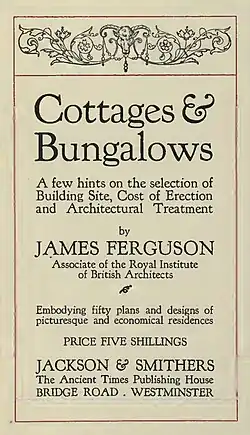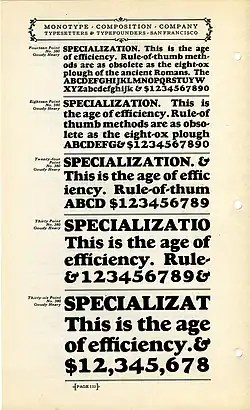
List of typefaces designed by Frederic Goudy
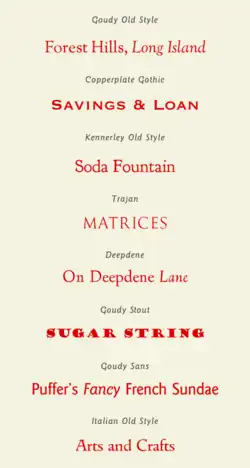
The following is a list of typefaces designed by Frederic Goudy.
Goudy was one of America's most prolific designers of metal type. He worked under the influence of the Arts and Crafts movement, and many of his designs are old-style serif designs inspired by the relatively organic structure of typefaces created between the fifteenth and eighteenth centuries, following the lead of earlier revivalist printers such as William Morris.[1] Eric Sloane, who was his neighbour as a boy, recalled that he also took inspiration from hand-painted signs.[2] He also developed a number of typefaces influenced by blackletter medieval manuscripts, illuminated manuscript capitals and Roman square capitals carved into stone.[3] This means that several of his most famous designs such as Copperplate Gothic and Goudy Stout are unusual deviations from his normal style.[4]
Goudy's taste matched a trend of the period, in which a preference for using mechanical, geometric Didone fonts introduced in the eighteenth and nineteenth century was being displaced by a revival of interest in the 'old-style' serif fonts (preferred by Goudy) developed before this, a change that has proved to be lasting, especially in book body text.[5][6][7][8]
Again unusually for type designers of the period, Goudy wrote extensively on his work and ambitions, partly in order to publicise his work as an independent artisan. He completed A Half-Century of Type Design and Typography, a two-volume survey of all his designs, late in life, in which he discussed all of his work.[9][10] Not all Goudy's designs survive or have been digitised: several, often designs never cut into metal, were lost in fires which burned down his studio in 1908 and again in 1939. Indeed, in his autobiography Goudy sometimes said he had little memory of some of his earlier designs. He worked extensively with his wife Bertha, who particularly collaborated with him on printing projects. He listed his typefaces with numbers in a similar way to the opus numbers used by composers.
Career
Unlike most type designers of the metal type era, Goudy worked as an independent designer not permanently employed by any one company, giving him particular latitude to work on his own projects. He generally avoided sans-serif designs, though he did create the nearly sans-serif Copperplate Gothic, inspired by engraved letters, early in his career and a few others later. As an independent artist and consultant, Goudy needed to undertake a large range of commissions to survive, and sought patronage from companies (and, especially later in life, universities) who would commission a typeface for their own printing and advertising.[12] This led to him producing a large range of designs on commission, and promoting his career through talks and teaching.[1][13] As a result, many of his designs may look somewhat similar to modern readers.
Goudy's career took place at a time of progress in printing technology. New pantograph engraving technology made it easier to rapidly engrave matrices), the moulds in which metal type would be cast or the punches used to stamp them in copper.[14] This gave much cleaner results than pre-pantograph punches, which had to be carefully hand-carved at the size of the desired letter, with less difficulty and the ability to prepare designs more easily from large plan drawings.[15]
During the early years of Goudy's career, hand typesetting was being superseded, especially for body text composition, by hot metal typesetting, and his client Monotype was one of the most popular manufacturers of these systems, in competition with that of Linotype. Both allowed metal type to be quickly cast under the control of a keyboard, eliminating the need to manually cast metal type and slot it into place into a printing press. With no need to keep type in stock, just the matrices used as moulds to cast the type, printers could use a wider range of fonts and there was increasing demand for varied typefaces. However, many of Goudy’s designs were used in hand-setting also.
While most of Goudy's designs are 'old-style' serif faces, they do still explore a wide range of aspects of the genre, with Deepdene offering a strikingly upright italic, Goudy Modern merging traditional old-style letters with the insistent, horizontal serifs of Didone faces of the eighteenth and nineteenth centuries and several such as Goudy Old Style being sold with a swash italic for display use.[16][17] His sans-serif series, Goudy Sans, adopts an eccentric humanist style with a calligraphic italic.[18][19] Quite unlike most sans-serif types of the period, it was unpopular in his lifetime but has been revived several times since by both LTC and ITC.[20][21][22]
Goudy started his career as a full-time type designer later in life, creating his first font in his early thirties.[23] In his earlier career he had worked first as a bookkeeper, and then as a printer and lettering artist.[24]
Critical assessment
The printer Daniel Berkeley Updike, while respecting some of his work, echoed Goudy's student Dwiggins' comment that his work lacked 'a certain snap and acidity'.[25][26][27][a] He also wrote that Goudy had "never gotten over" a desire to imitate medieval books.[28]
The British printer Stanley Morison, also a veteran of fine book printing whose career at Monotype had moved in the direction of blending tradition with practicality, admired much of Goudy's work and ethos but wrote that Goudy had "designed a whole century of very peculiar looking types", and that he was glad that his company's Times New Roman did not look "as if it has been designed by somebody in particular — Mr. Goudy for instance."[29] Goudy felt in his later life that his career had been overshadowed by new trends, with modernism and a trend towards sans-serifs and sharp geometric type leaving his work out of favor.[30]
Walter Tracy, a leading historian of type design, devoted a section of his book Letters of Credit to a critical assessment of Goudy's work. He was impressed by Goudy Old Style, the blackletter Goudy Text, Goudy Heavy and to a certain extent Deepdene, but felt that Goudy was over-fond of eccentric detailing, such as a "restless" tilted 'e' common in early printing, and felt that Goudy's prolific work rate had prevented him from critically assessing his designs. He noted as an example how his "Bertham" type, named in memory of his late wife ("Bertha M."),[31] was drawn and engraved in sixteen working days: "there cannot have been much time for the objective scrutiny which every design should undergo before it is allowed to emerge from the workshop."